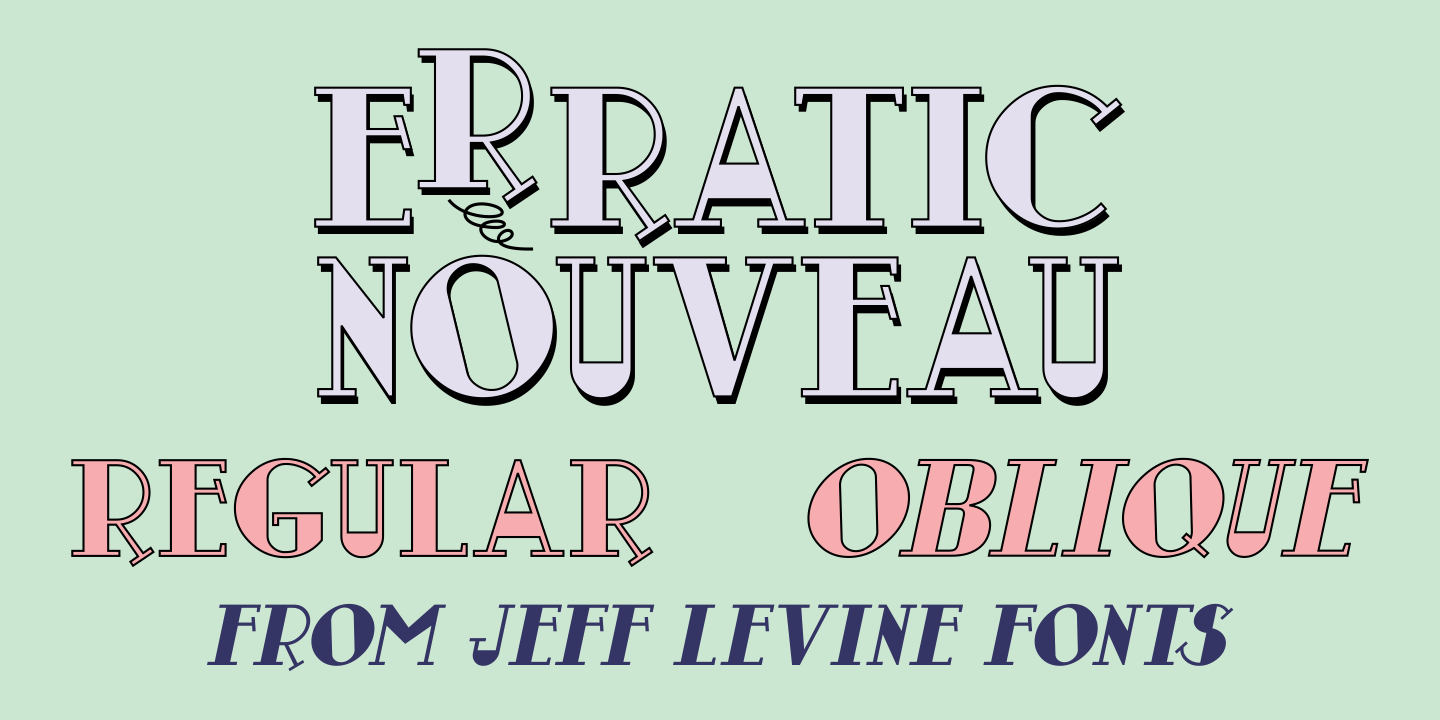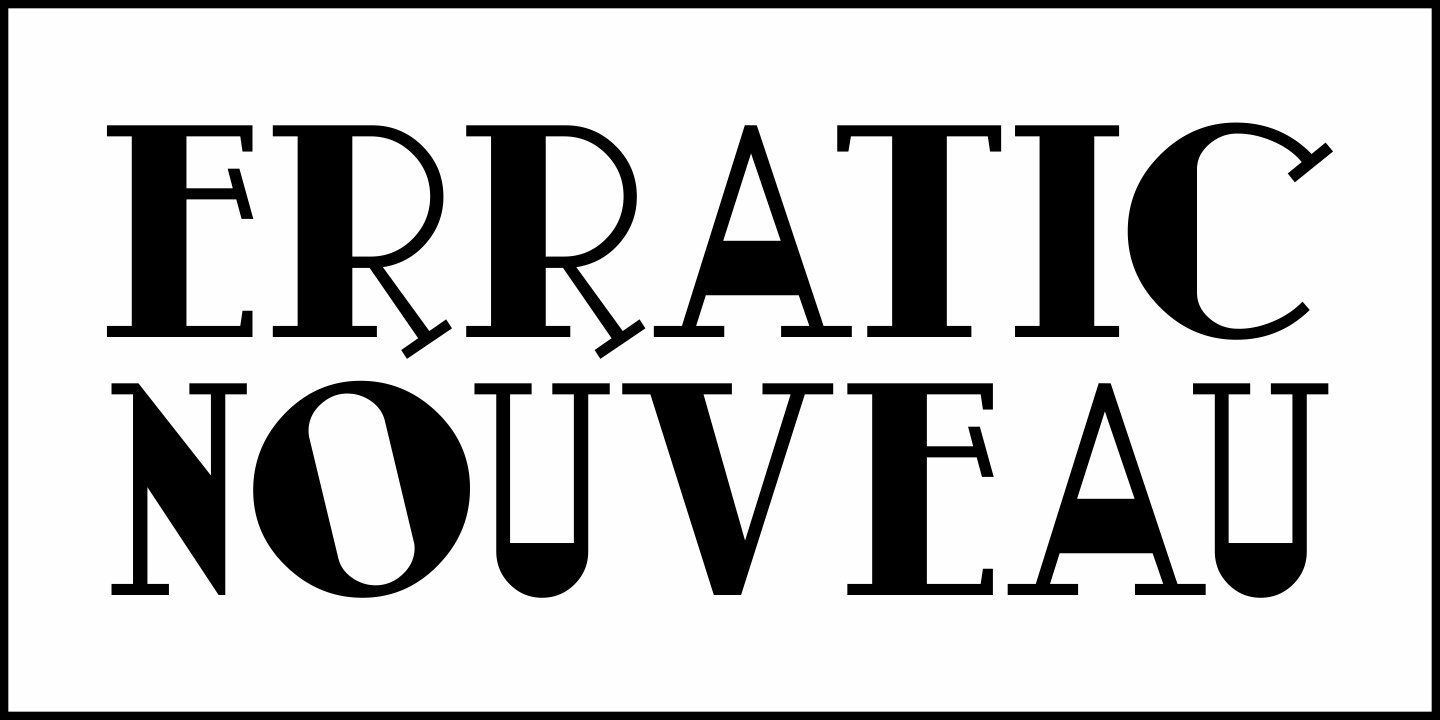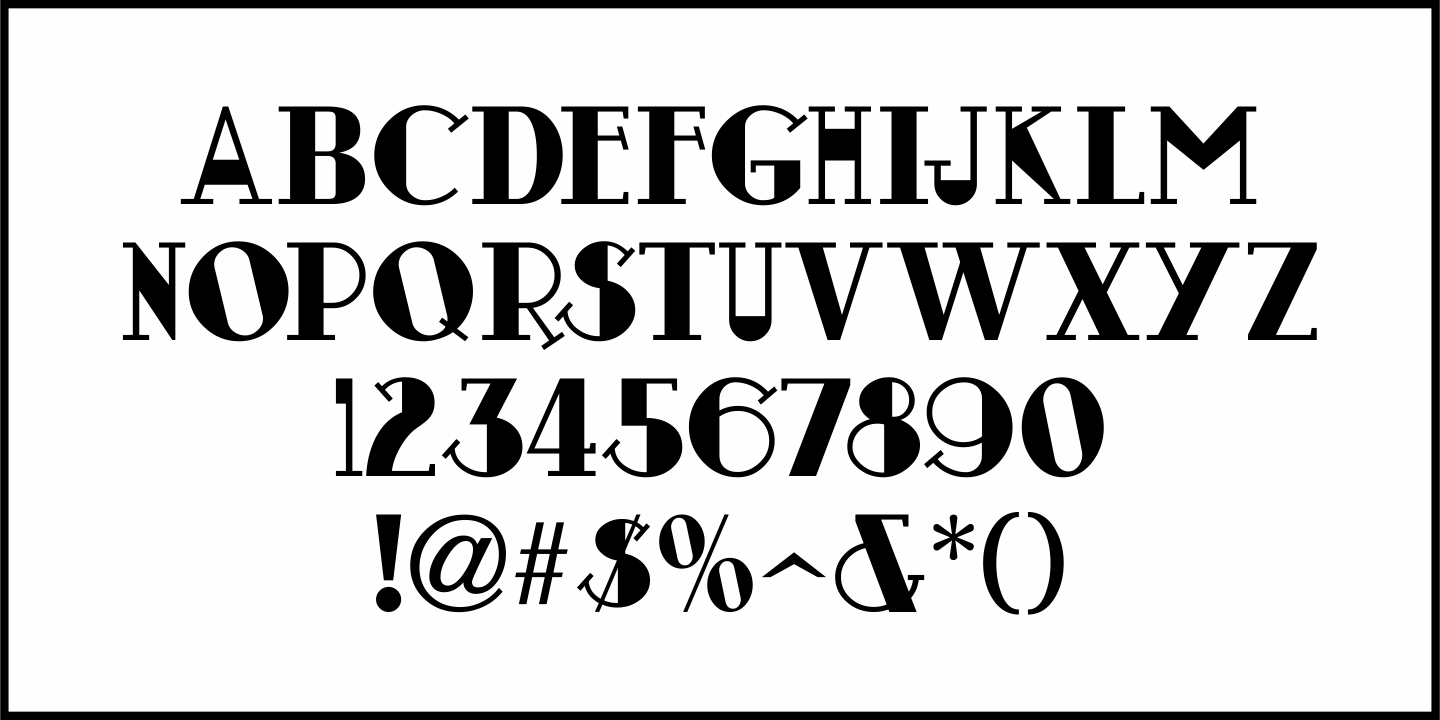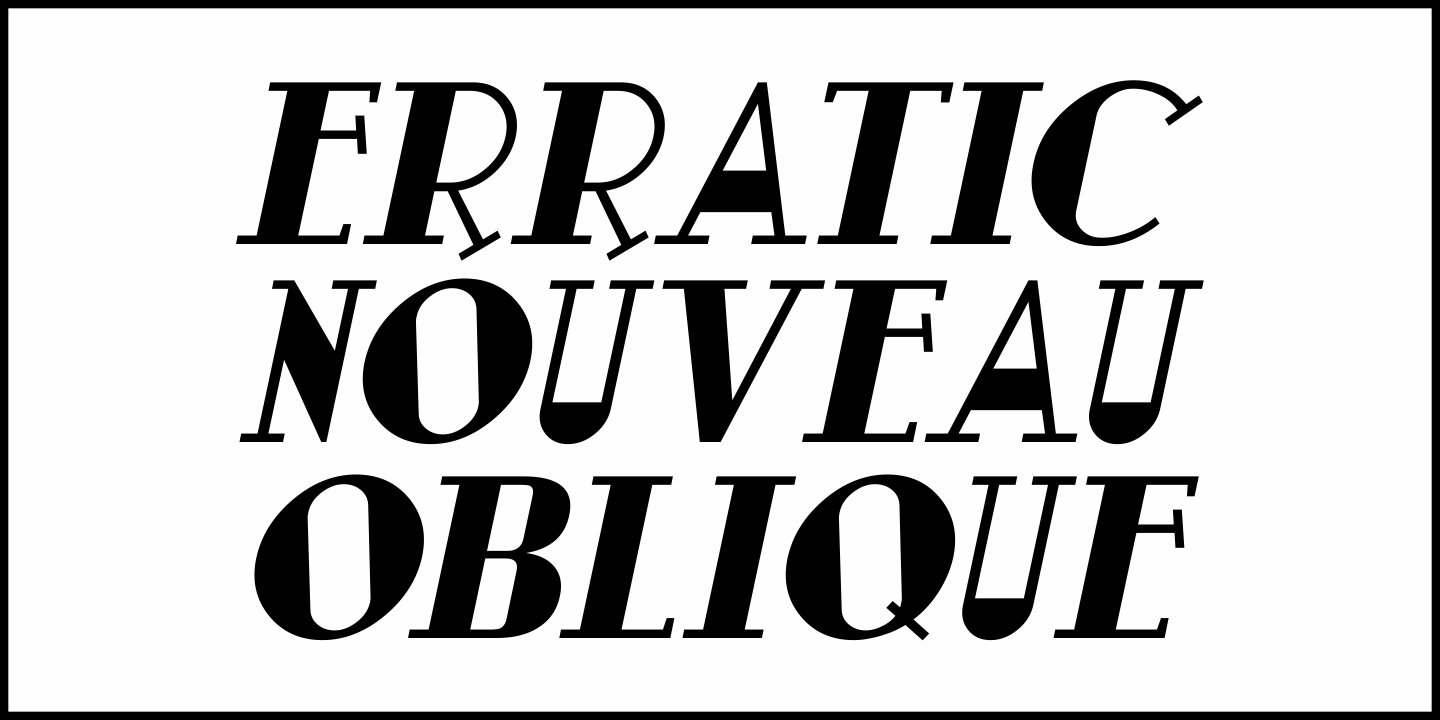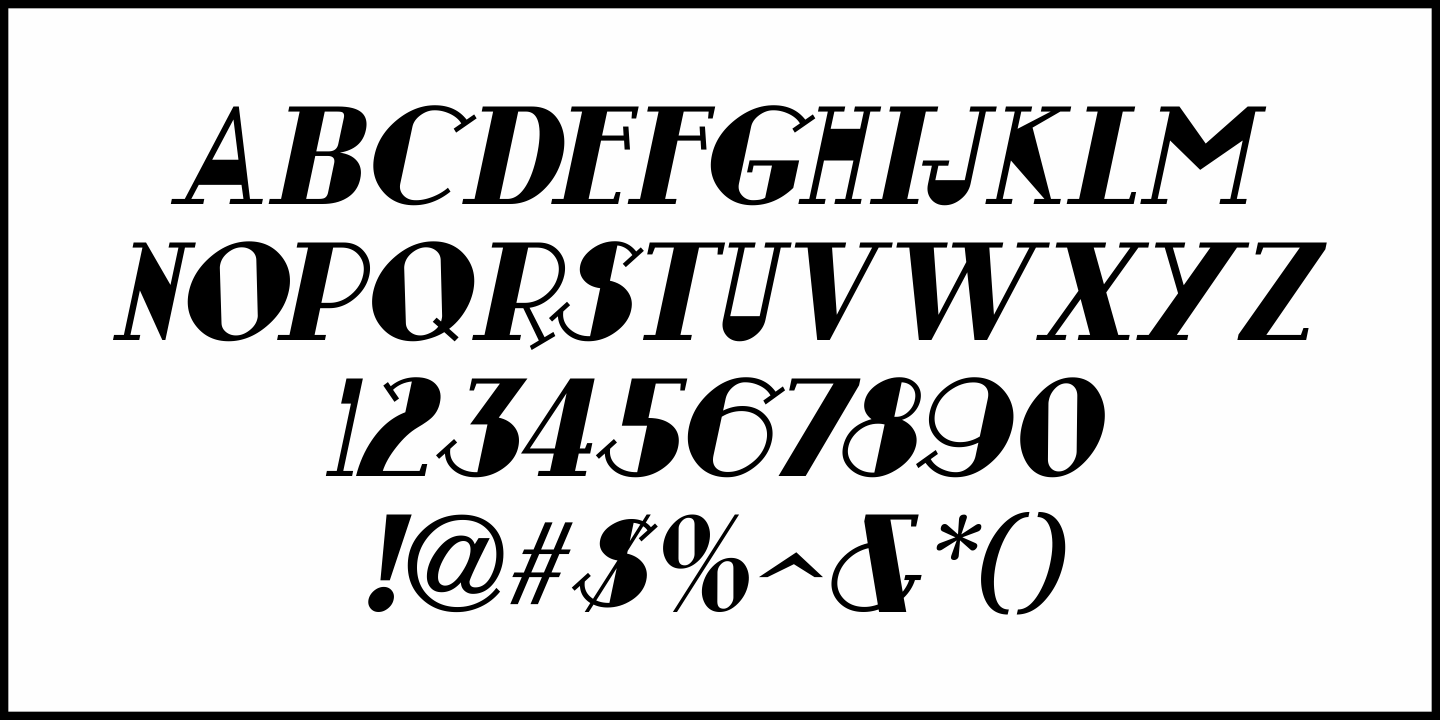
Erratic Nouveau
The title on the 1925 sheet music for “By the Light of the Stars” was hand lettered in an eccentric Art Nouveau type style with varying character shapes and line widths.
This is now available as Erratic Nouveau JNL in both regular and oblique versions.